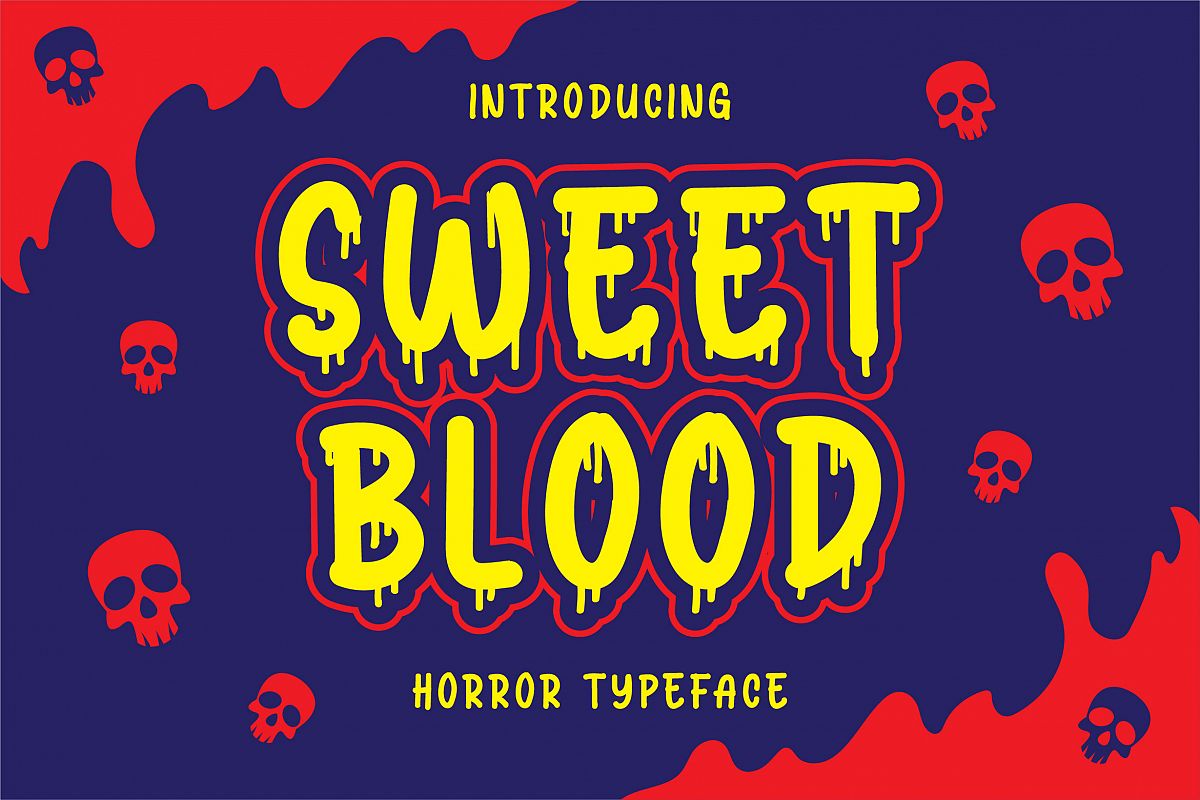
Introducing of our new product the name is Sweet Blood Horror Typeface. Sweet Blood good for helloween poster, horror poster, childrenbook, cartoon, comic etc